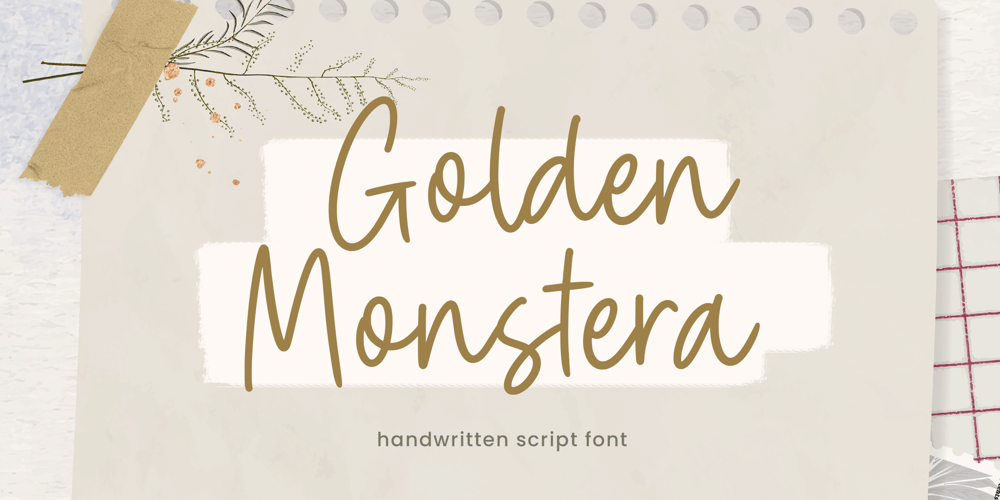
Golden Monstera
Golden Monstera font
Golden Monstera Font Family was designed by Wara Sigit Tri Pamungkas and published by Timurtype. Golden Monstera contains 1 styles and family package options. Introducing by Timur typeProudly Present, Golden Monstera A Handwritten FontGolden Monstera is perfect for product packaging, branding project, megazine, social media, wedding, or just used to express words above the background.This White Buttert font includes:-Full Set of standard alphabet and punctuation & symbol-Extra set Alternate ending lowercase-multilingual support.Embelish your designs with our original fonts.Enjoy the font, Thank you!